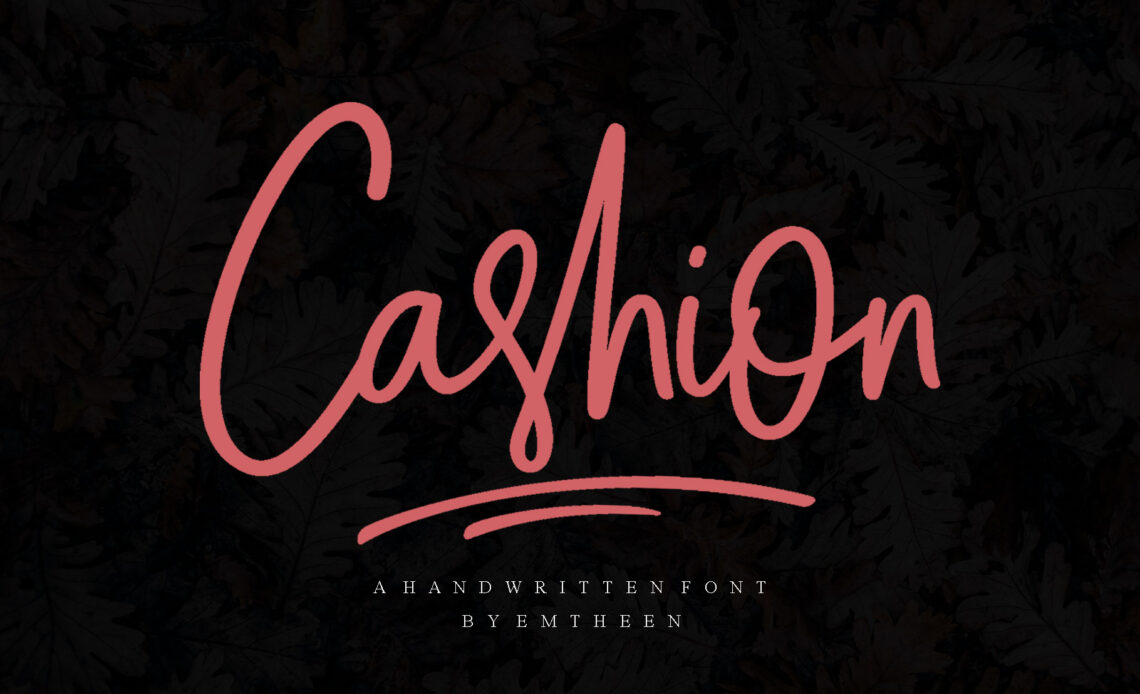
Get ready to unveil a typographical masterpiece that will transform your creative visions into captivating realities! Cashion Script, a handwritten font born from the artistry of Emtheen Std., beckons you to embrace the beauty of authenticity and elegance in your digital endeavors.
Two distinct styles await your exploration, each meticulously crafted to lend a touch of sophistication to your projects. Whether you're weaving tales of fashion or crafting heartfelt editorials, Cashion Script stands as your steadfast companion, ready to elevate your words with its graceful strokes.
Immerse yourself in the world of Cashion Script and discover a font that speaks to the soul. Its wide, relaxed shapes exude an air of tranquility, inviting readers to lose themselves in the flow of your narrative. It's a font that captivates and enchants, leaving an indelible mark on the hearts and minds of your audience.
With Cashion Script, you hold the key to unlocking a world of creative possibilities. Design logos that radiate elegance, craft social media posts that captivate the senses, or create invitations that exude a touch of timeless charm. The possibilities are endless, waiting for you to unleash your imagination and let Cashion Script guide you to typographic greatness.